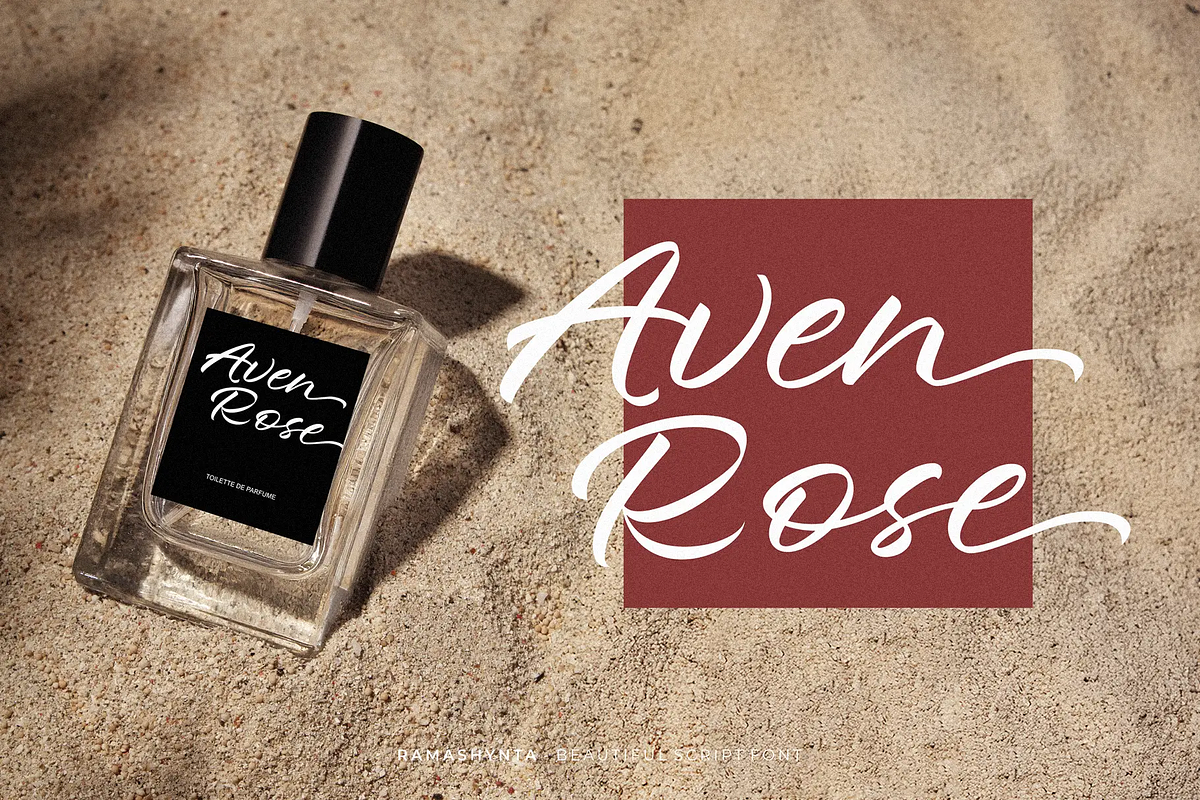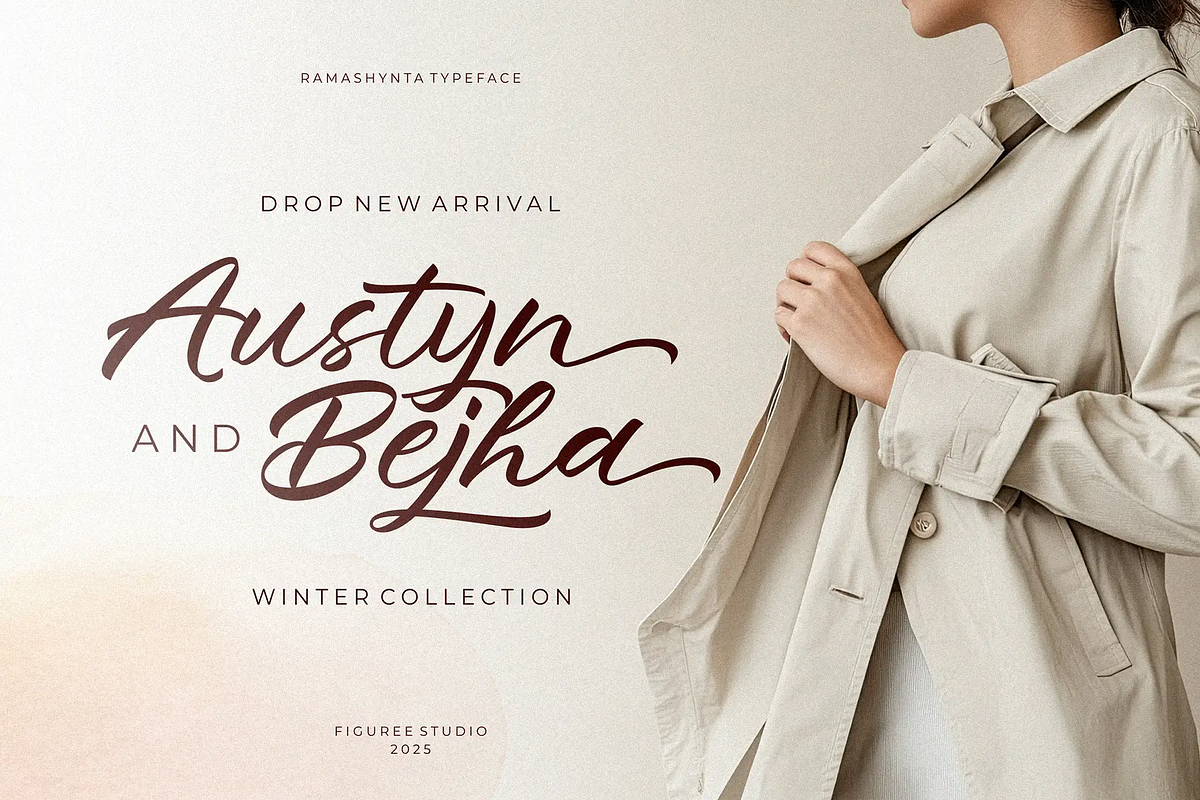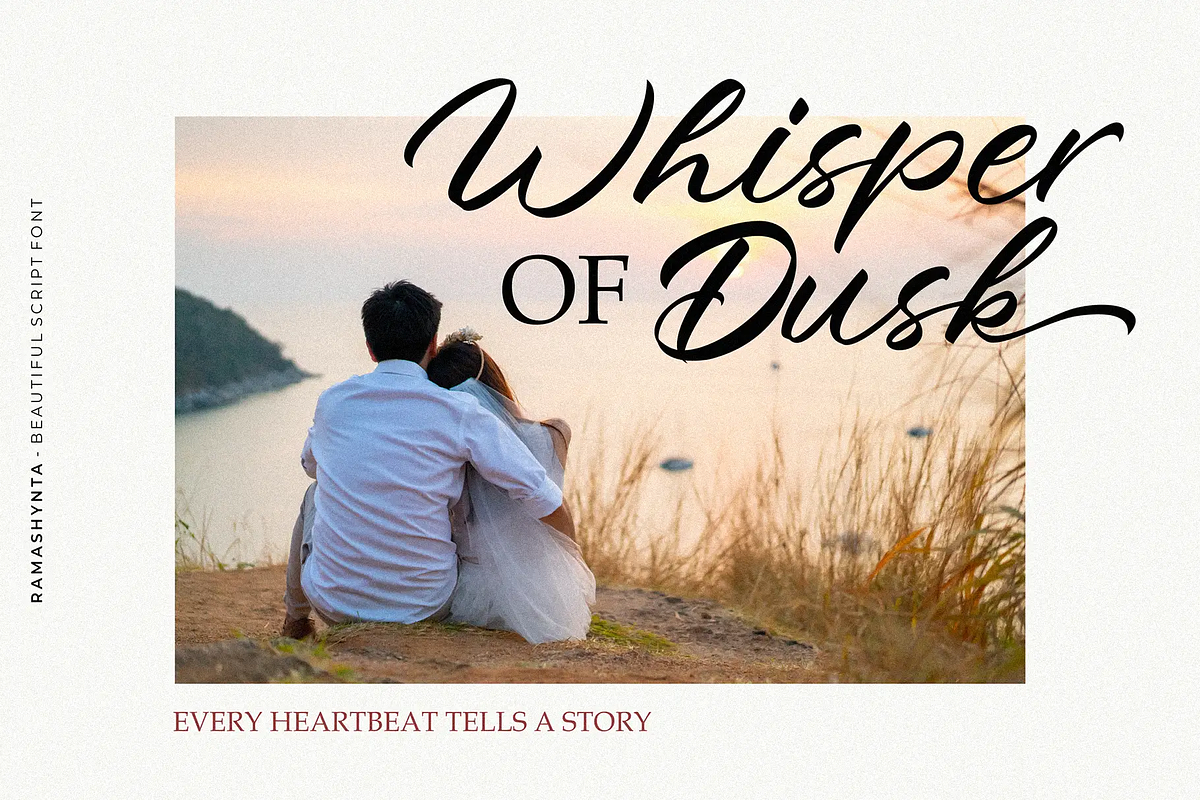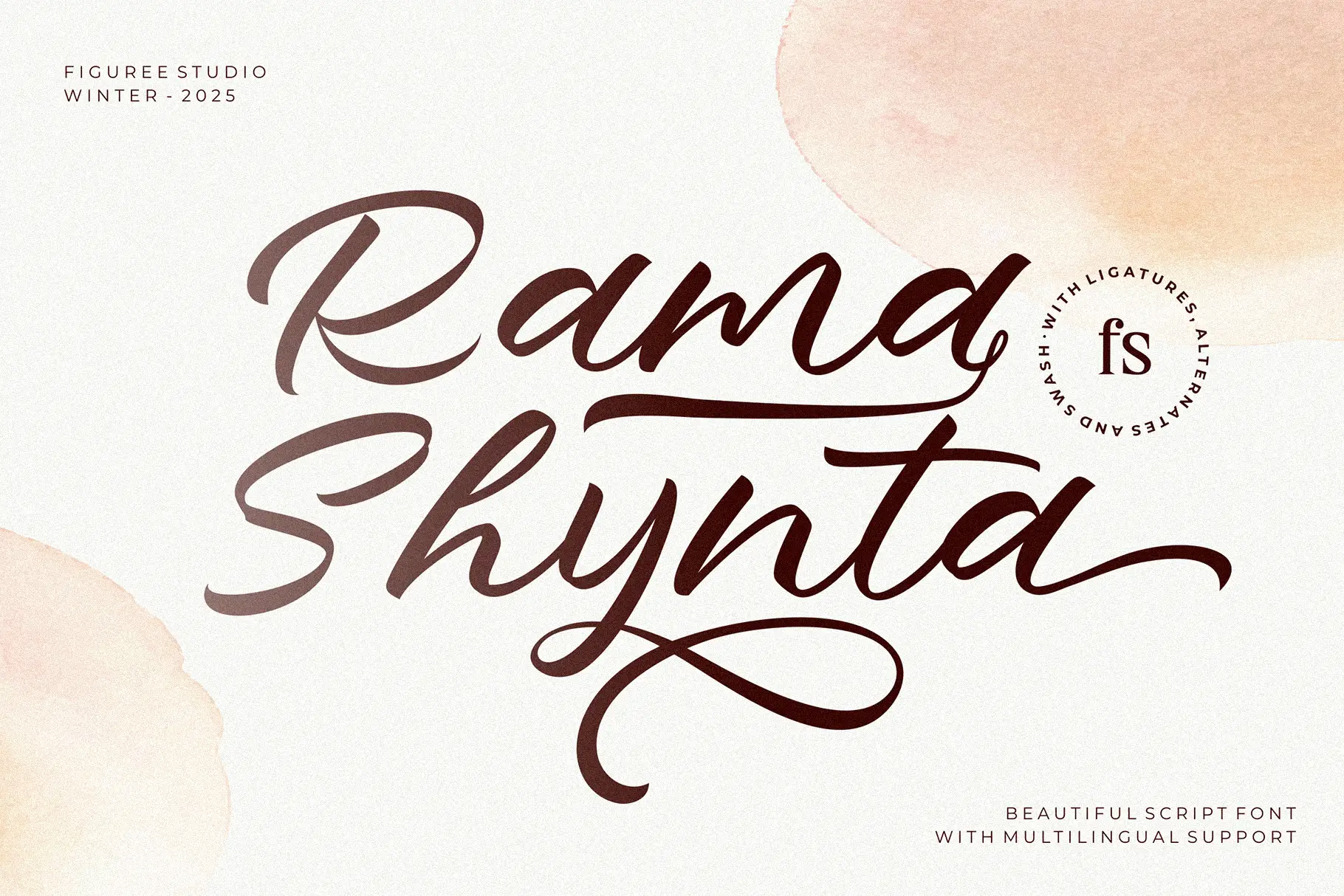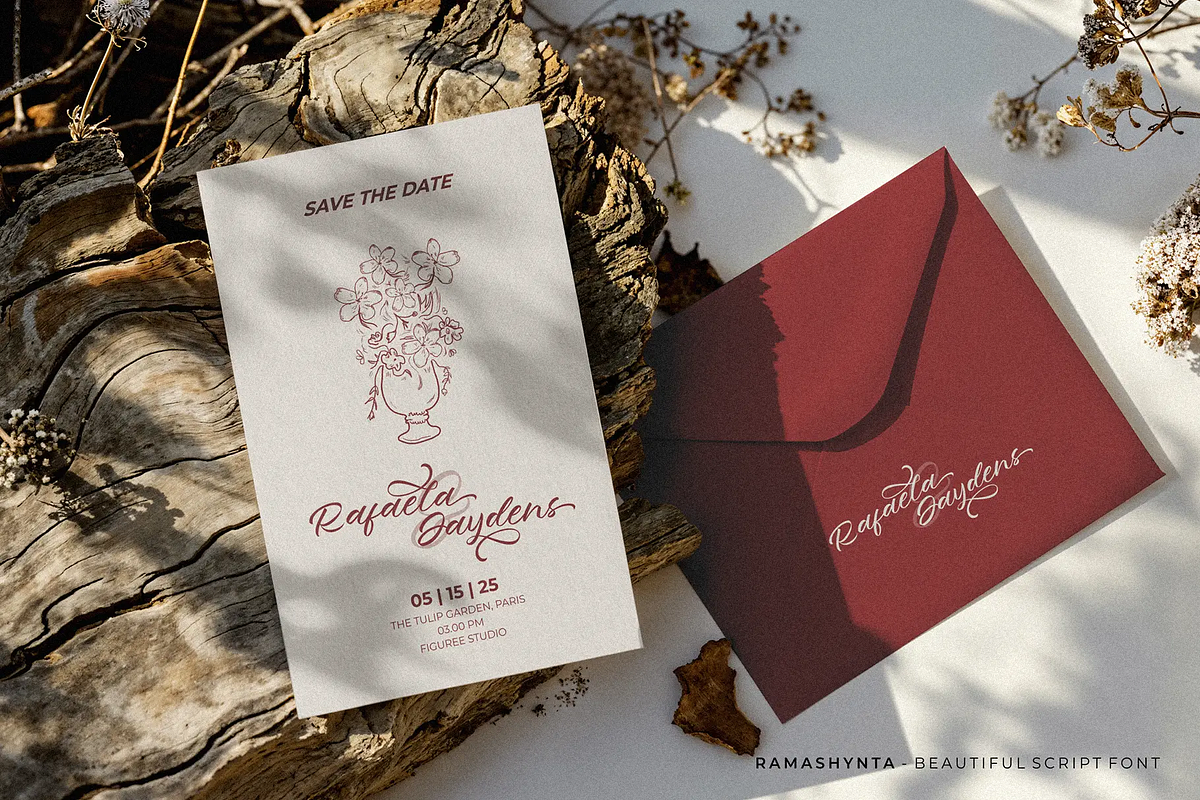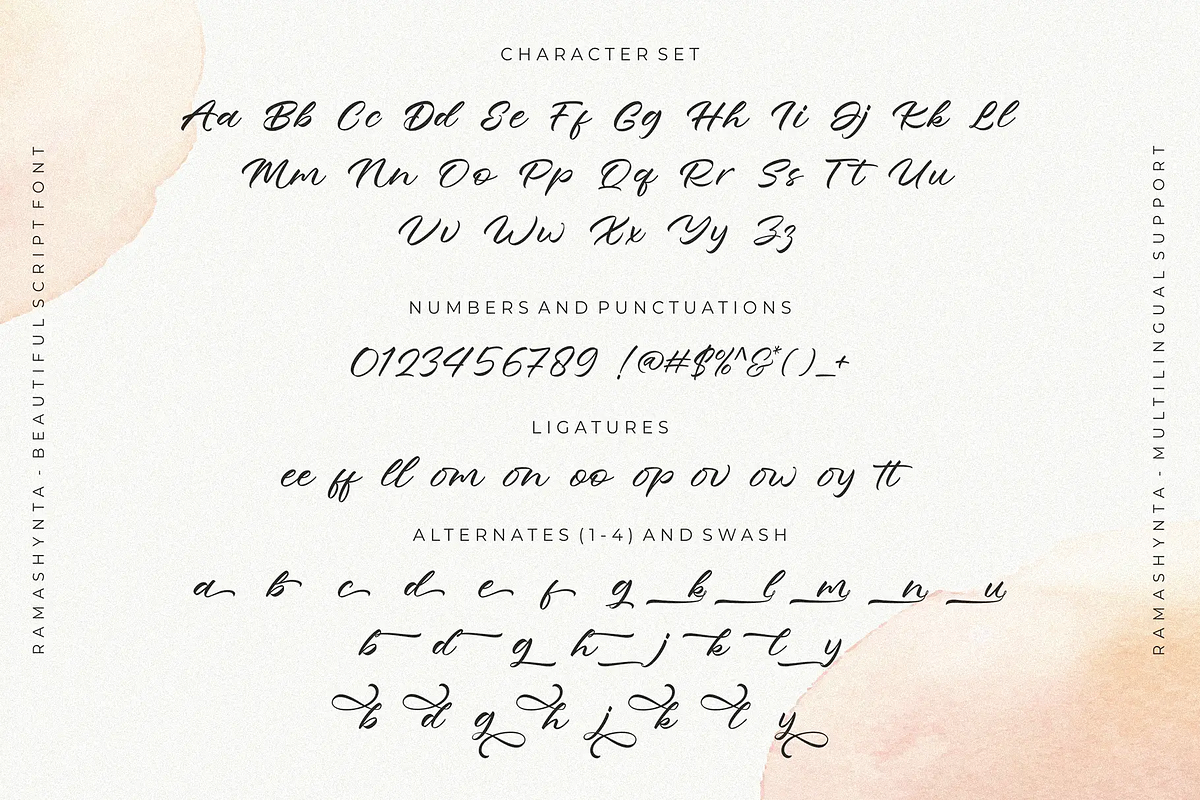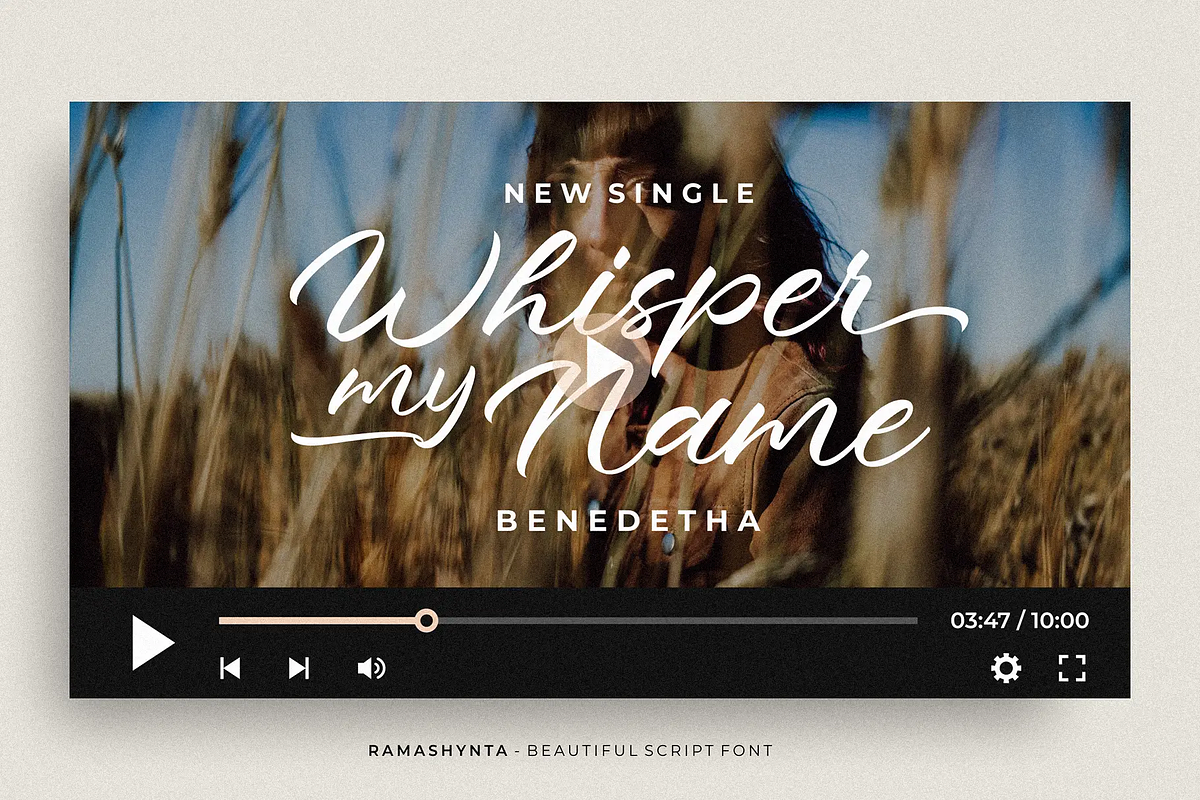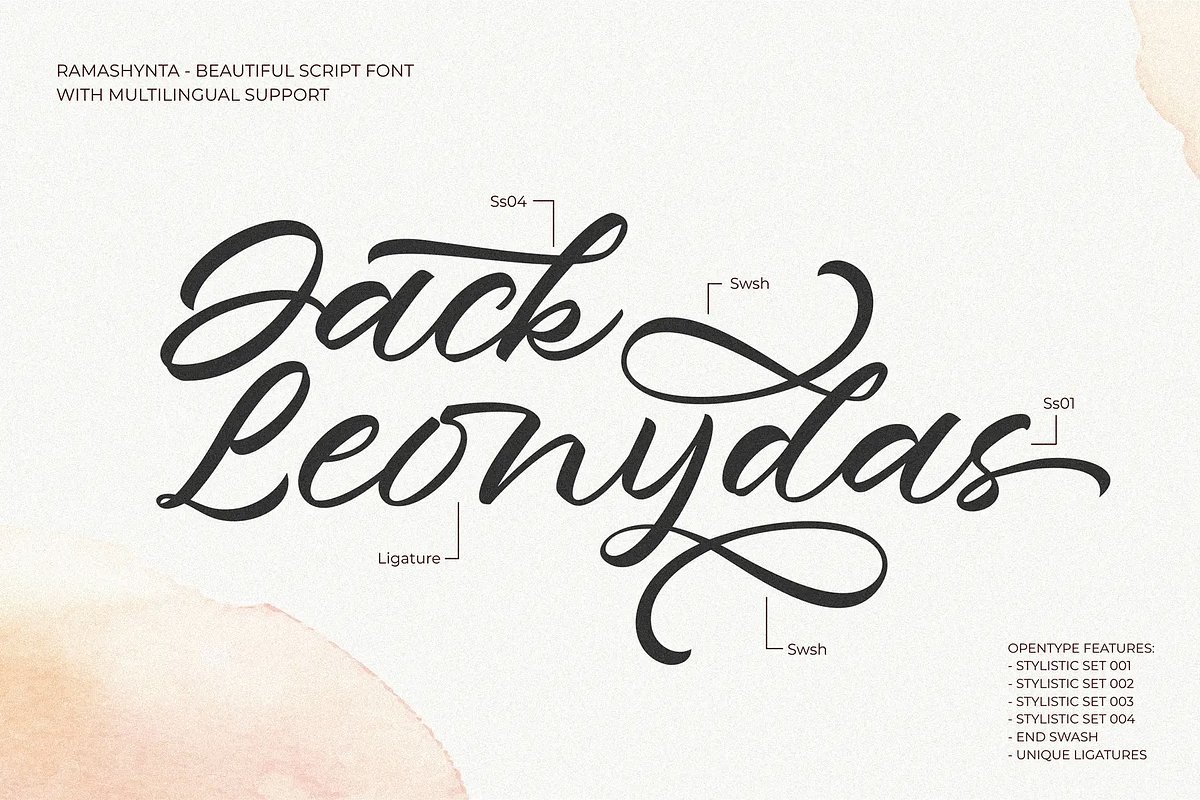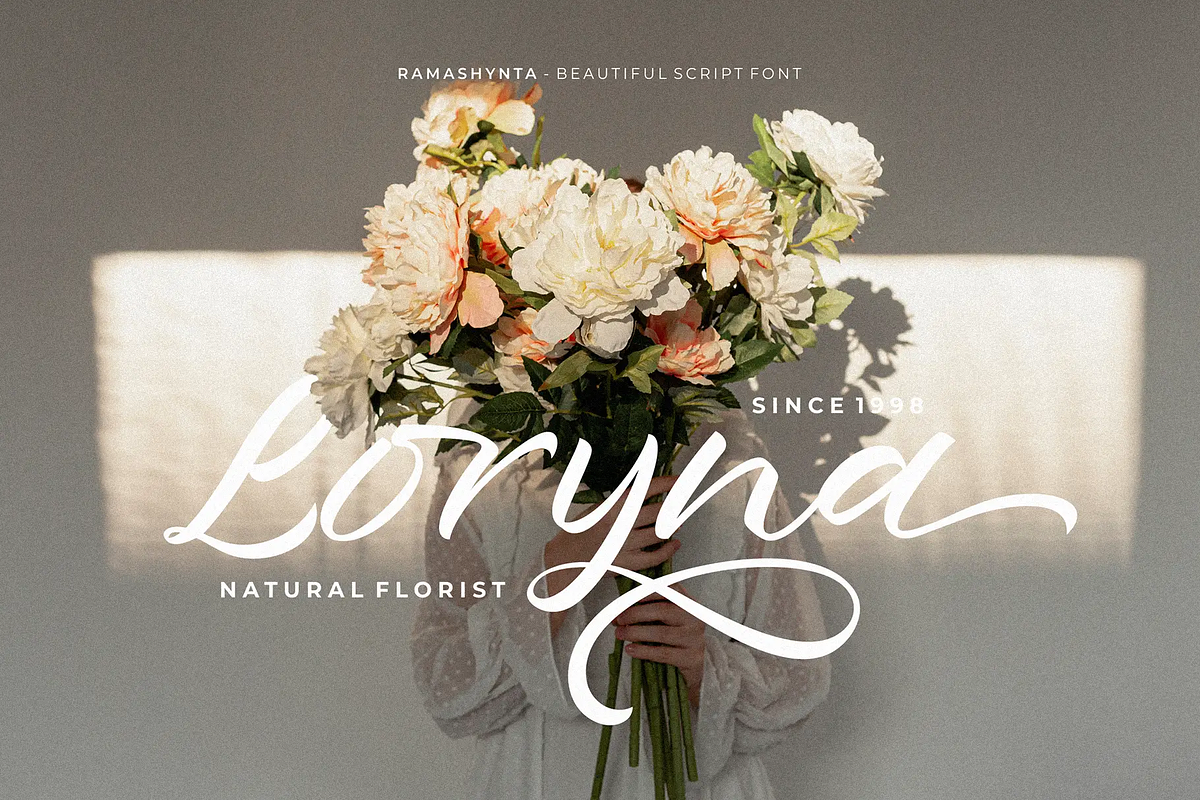
Ramashynta – Beautiful Script Font
Ramashynta – Romantic Script Font brings a refined and expressive handwritten style that enhances visual communication with warmth and fluidity. Designed with a natural pen stroke flow, this font gives each letter a graceful rhythm that works perfectly in modern calligraphy projects, event stationery, editorial layouts, and decorative quotes.
The font includes uppercase, lowercase, numbers, and punctuation to support complete typographic needs. With its multilingual capability, Ramashynta ensures consistency across different languages and global audiences. The addition of stylistic sets, ligatures, and swashes allows designers to customize words and phrases with ease, making every composition feel personal and authentic.
- Uppercase, Lowercase, Numbers & Punctuation for full creative use.
- Support Multilingual to communicate across various languages.
- Stylistic Set 01–04 for flexible decorative alternates.
- Ligatures and Swash for smooth, natural connections between letters.
- Calligraphic Script Style with balanced curves and rhythm.
- Works for Both Print & Digital – perfect for invitations, cards, posters, and branding.
- Optimized Letter Spacing for professional readability.
Why Designers Love It
Designers appreciate Ramashynta for its flexibility and control over stylistic variation. The script maintains legibility while offering fluid motion, making it suitable for both large display text and smaller decorative uses. The ligatures create realistic handwriting effects, while the swashes add an elegant finishing touch without overwhelming the composition.
Its clean vector curves ensure smooth rendering on both digital screens and print materials. Multilingual support allows creatives to work confidently with international clients or multilingual content. Combined with the stylistic sets, Ramashynta becomes a versatile tool that adapts easily to various creative contexts—from invitations and packaging design to motivational typography and art prints.